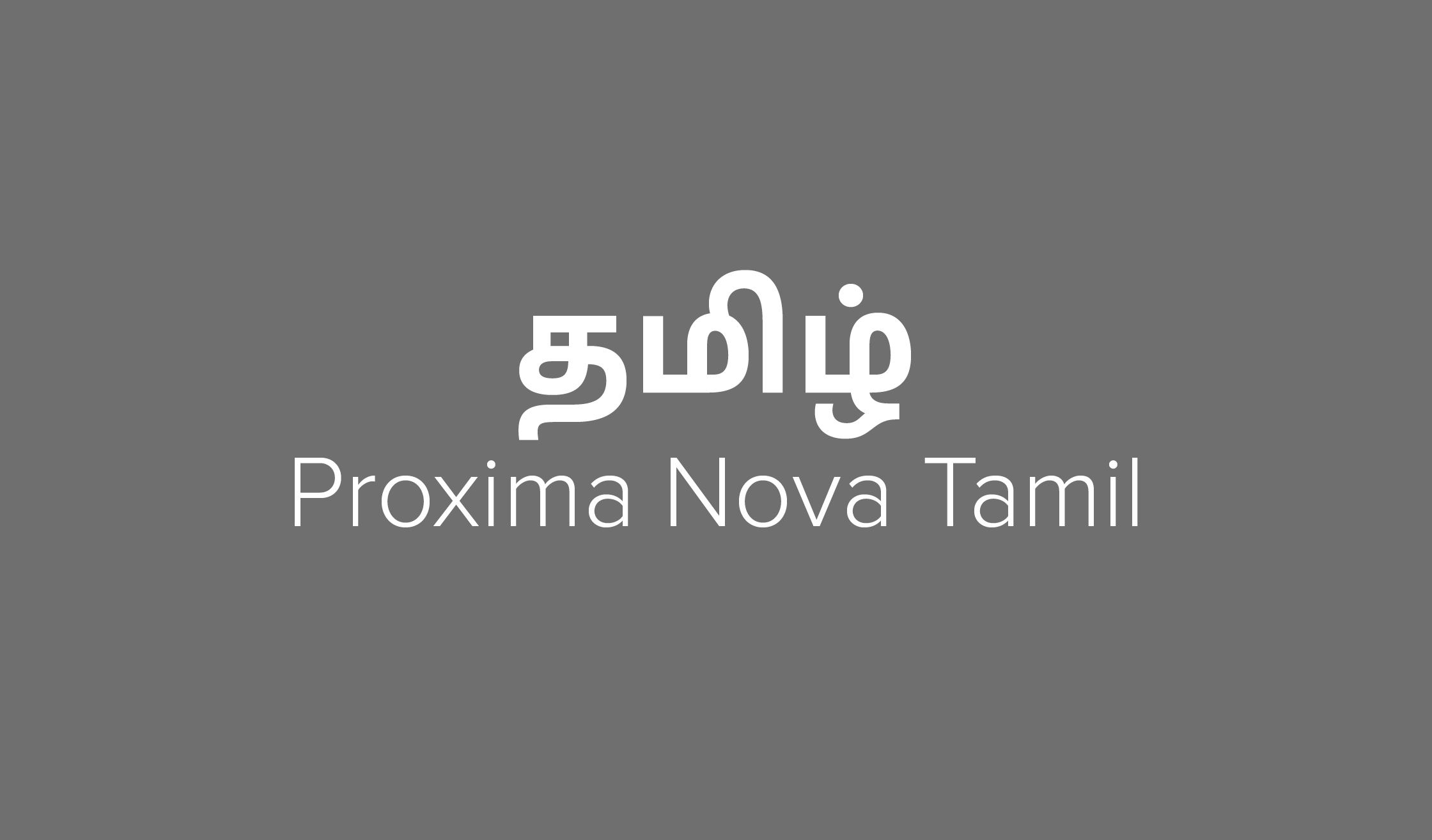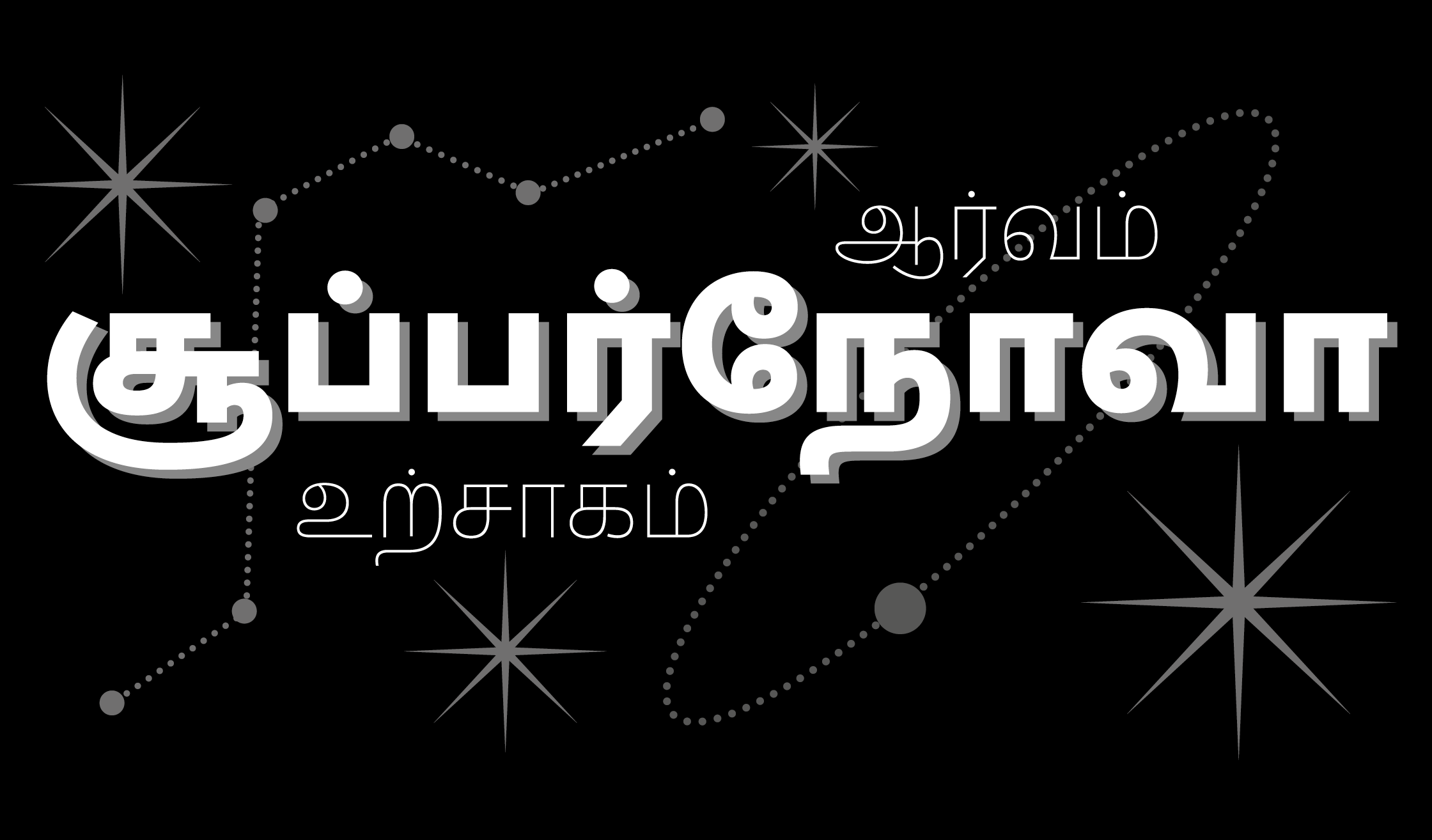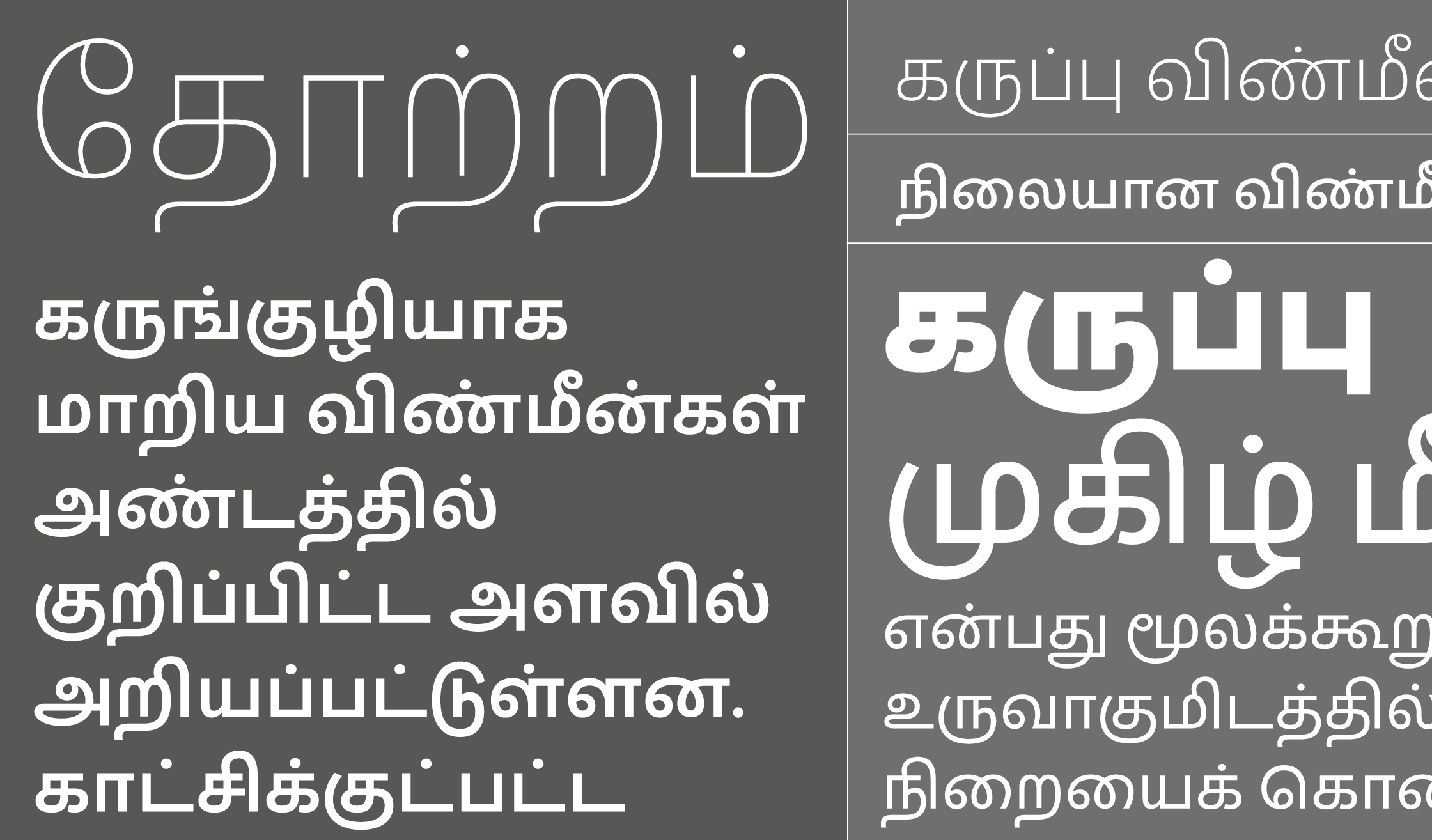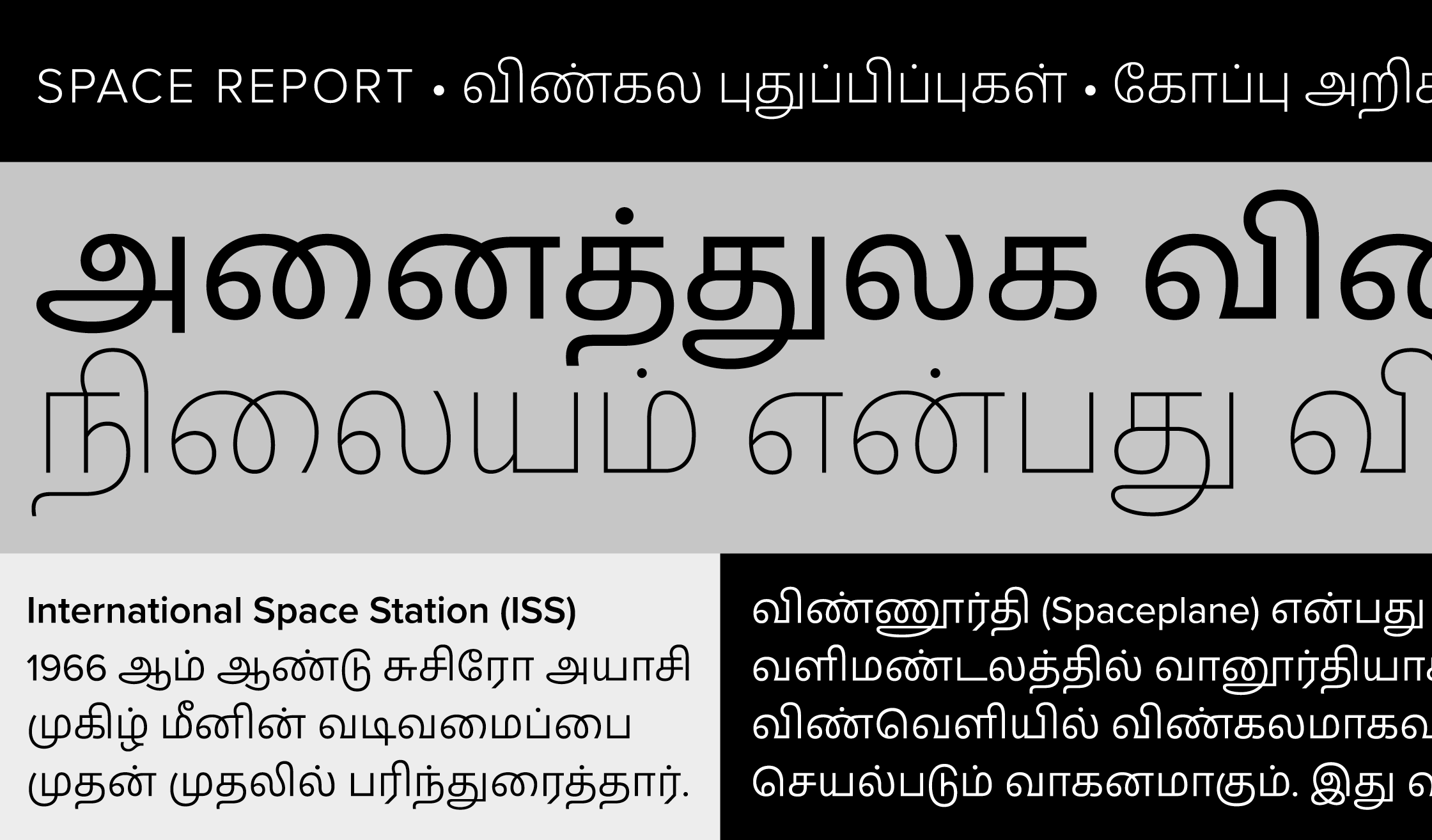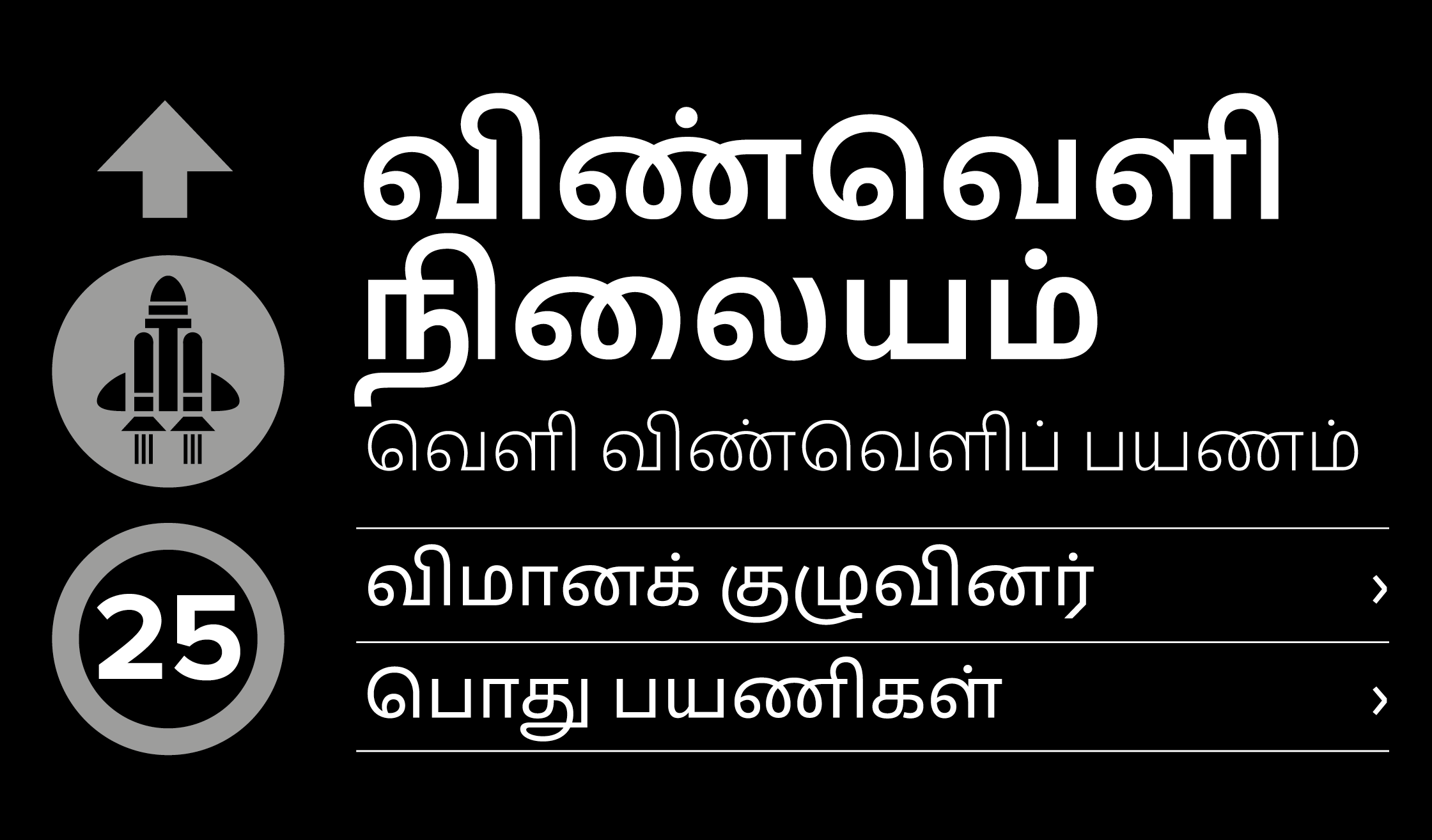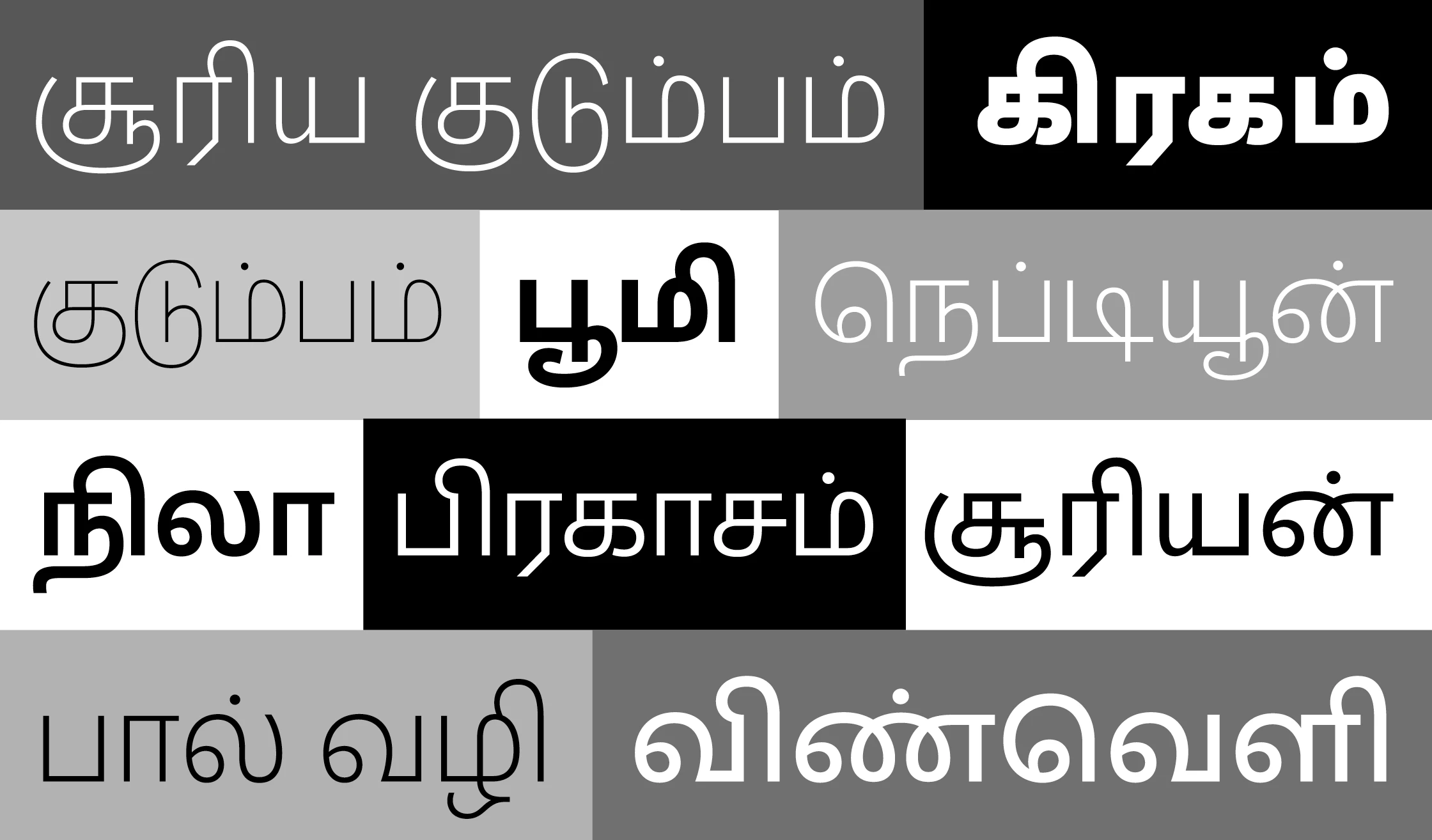
Proxima Nova Tamil (2025) was designed by Vaibhav Singh and Alessia Mazzarella of Typeland for Mark Simonson’s well-regarded Proxima Nova. One of the official scripts of the Indian Republic, this sturdy Tamil script family offers designers a well-proportioned, low-contrast option that complements the original Latin while preserving the distinctive integrity of the script. Available in eight weights — Thin to Black — this growing family is poised to become increasingly popular worldwide.